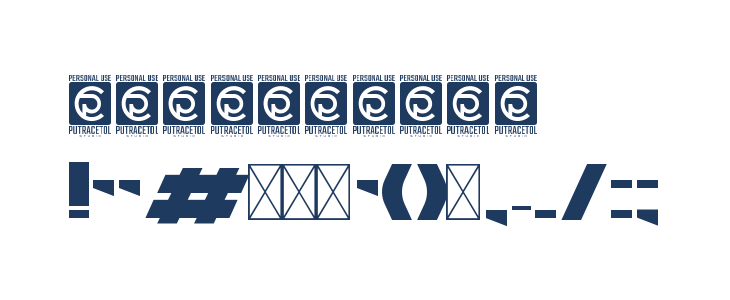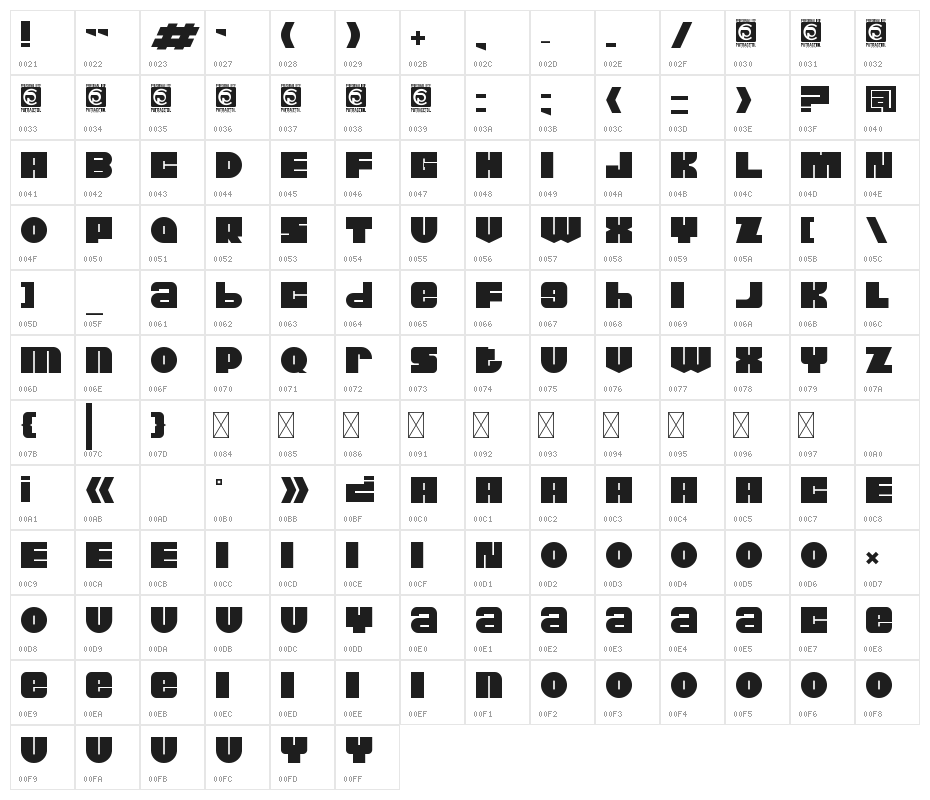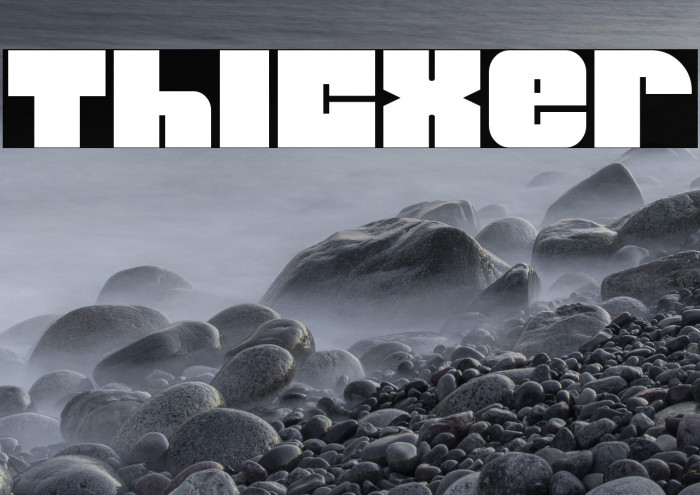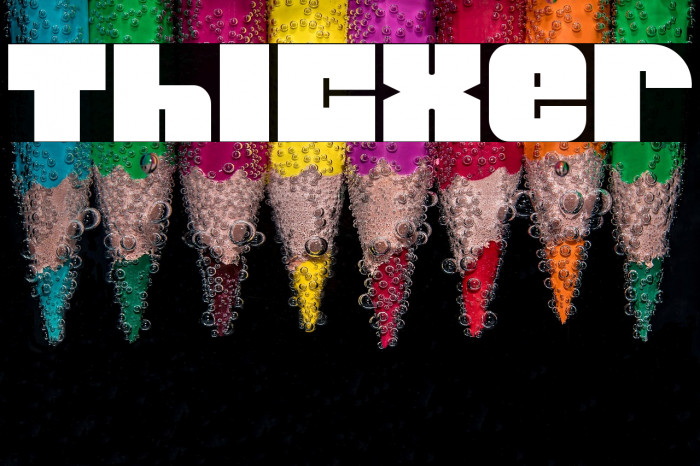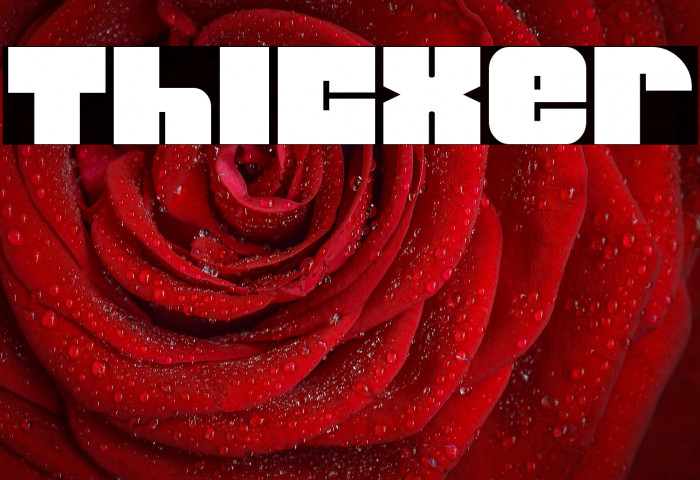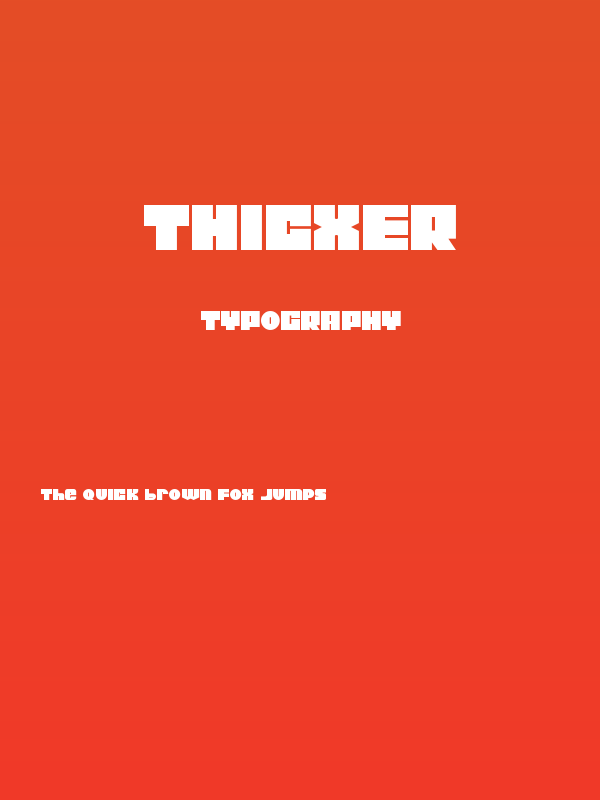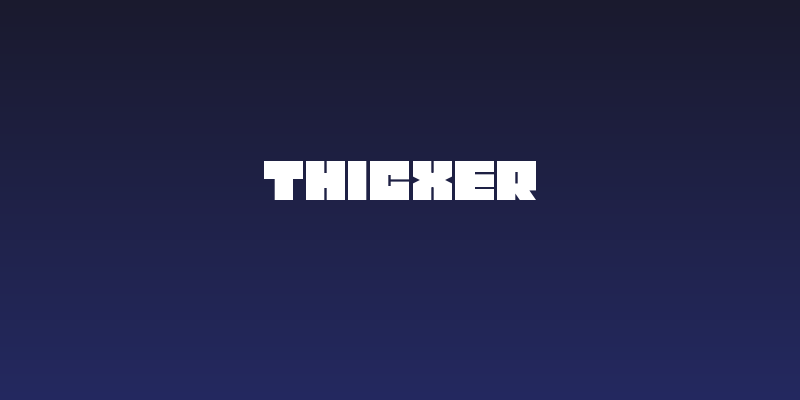
Thicxer Font
Thicxer Description
This font features a bold and geometric design with a strong presence. The characters are blocky and wide, creating a sense of stability and impact. The uppercase and lowercase letters maintain a consistent style, with sharp angles and straight lines. The numbers and special characters follow the same bold and structured aesthetic, making the font suitable for attention-grabbing headlines or logos. Its unique style is reminiscent of industrial or futuristic themes, providing a modern and edgy look.
| Proposed Projects | Ideal for branding, posters, headlines, and any project requiring a bold statement. |